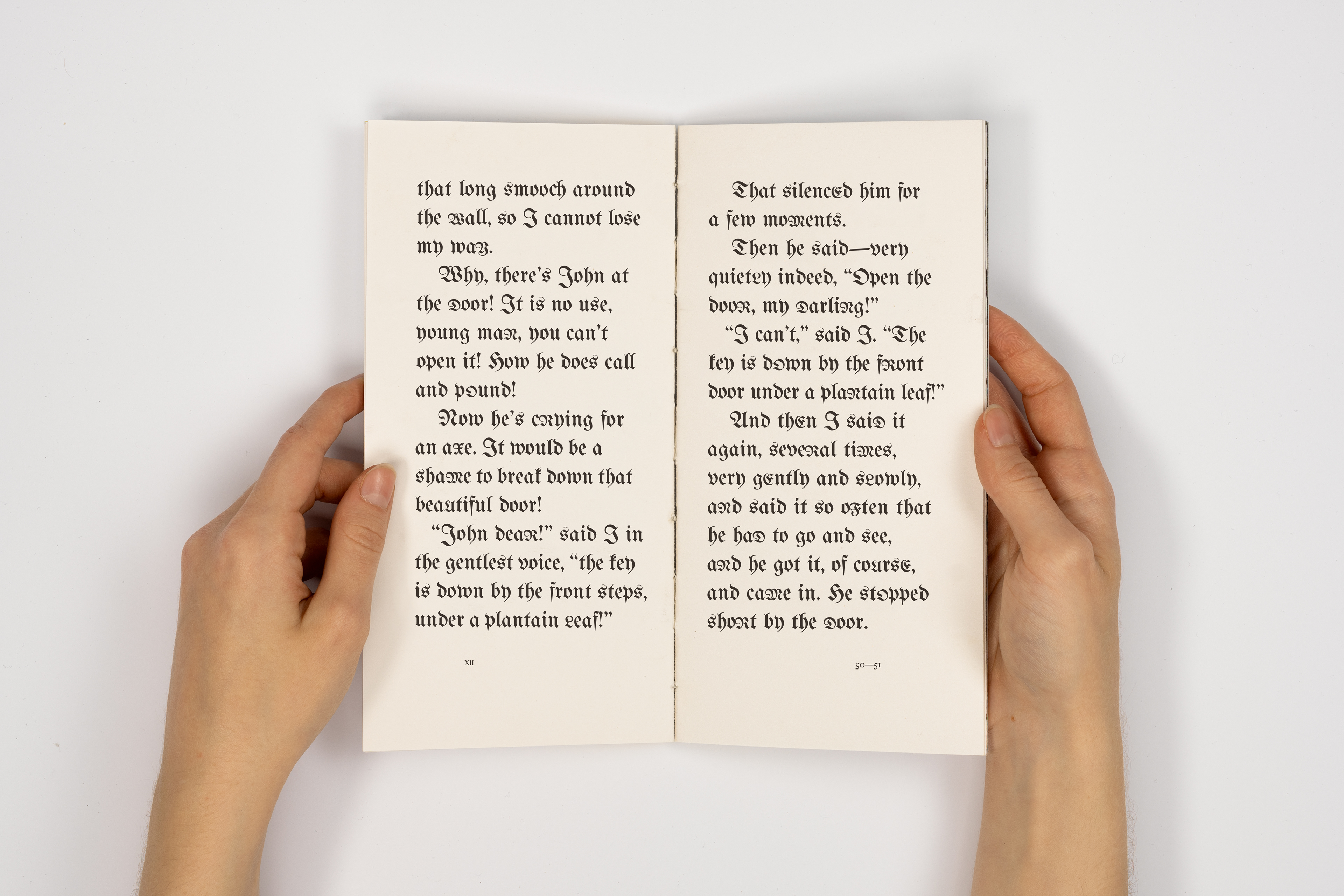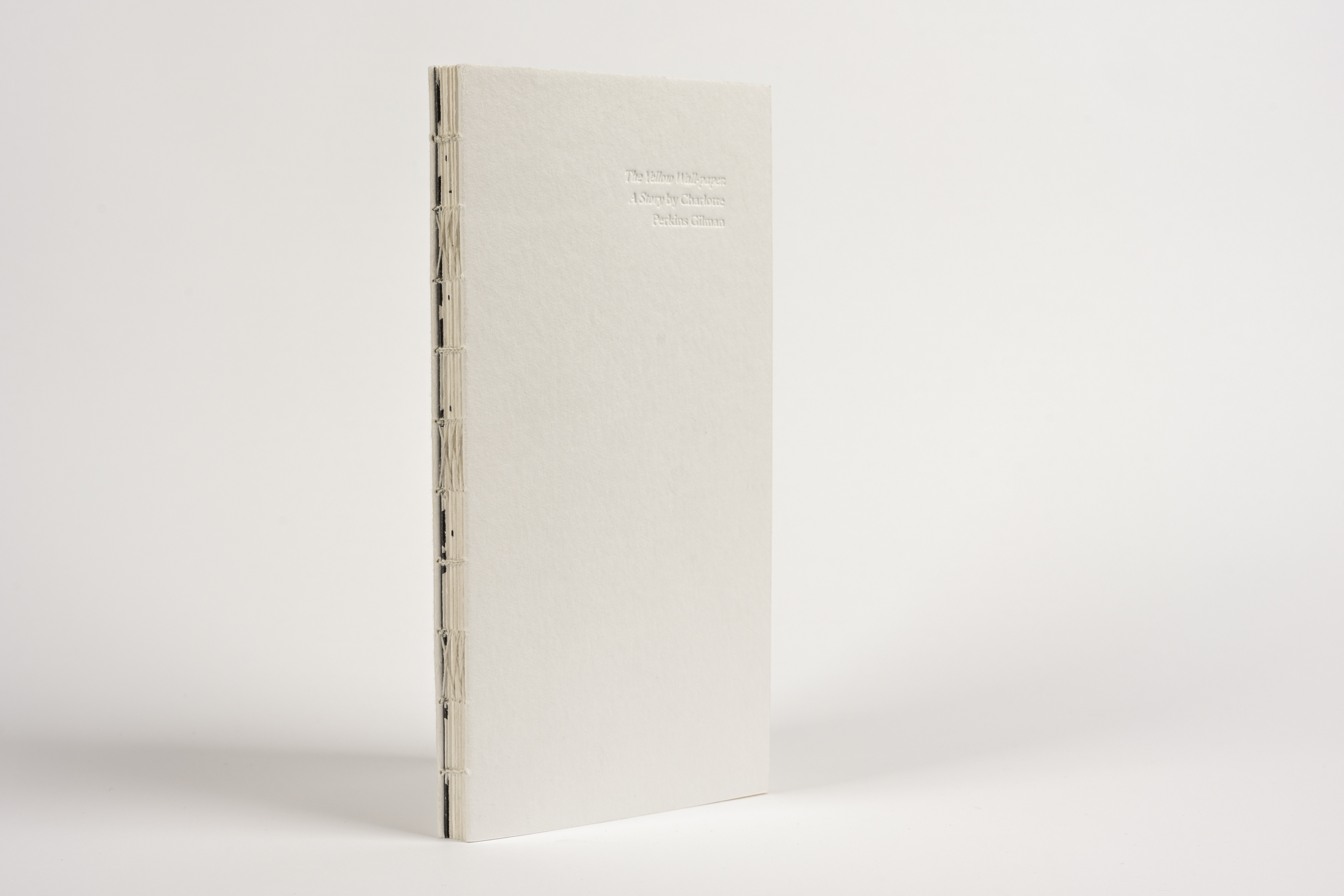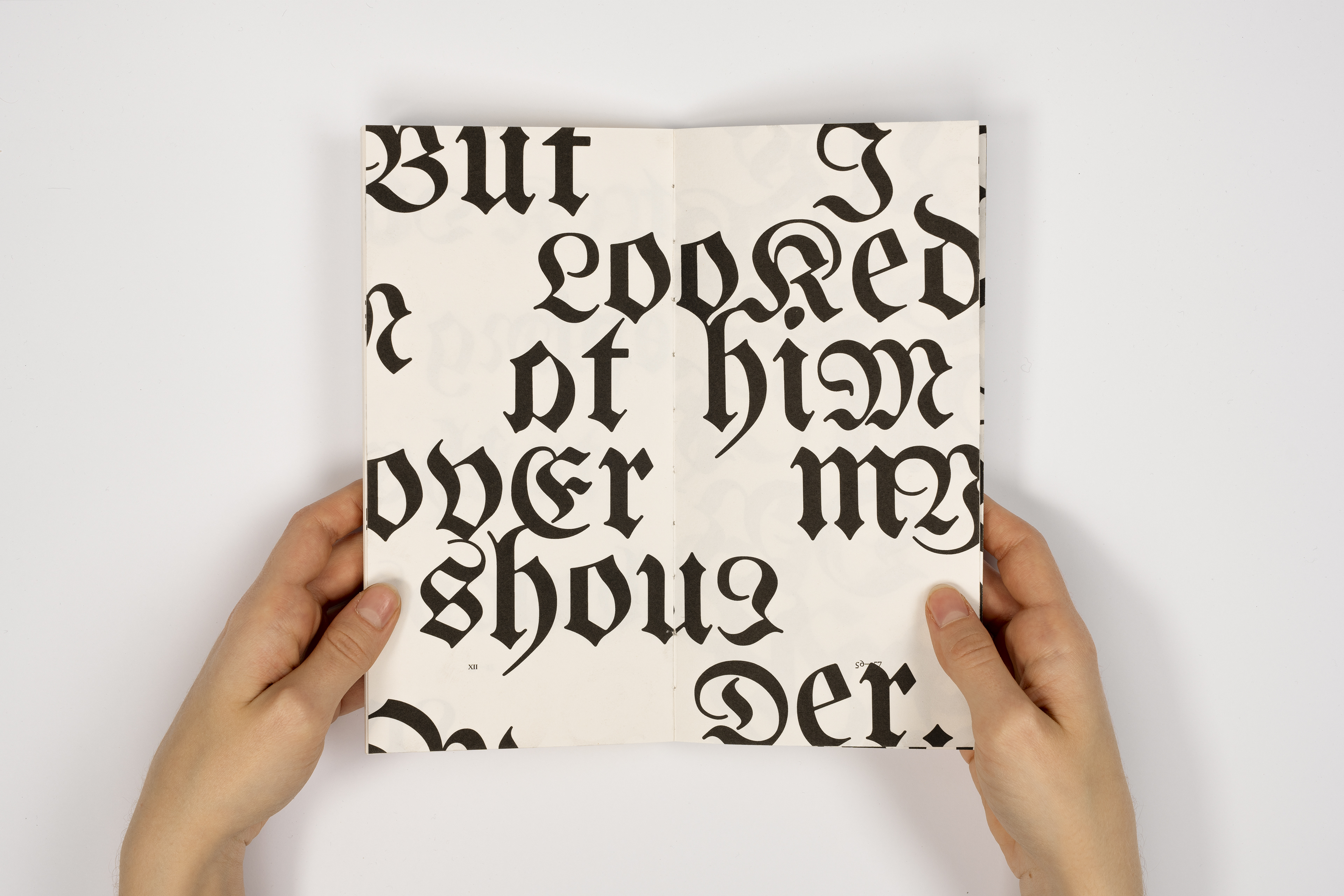
Maja Urbanek
title: Yellow Wallpaper
author: Charlotte Perkins Gilman
description: A typographic interpretation of Charlotte Perkins Gilman’s 1892 Gothic novel. The gradual transformation of the text into the titular ornamental wallpaper—the object of the narrator’s obsession and paranoia—mirrors the deterioration of her mental state as she suffers from postpartum depression, highlighting the dire consequences of women’s medical issues being dismissed.